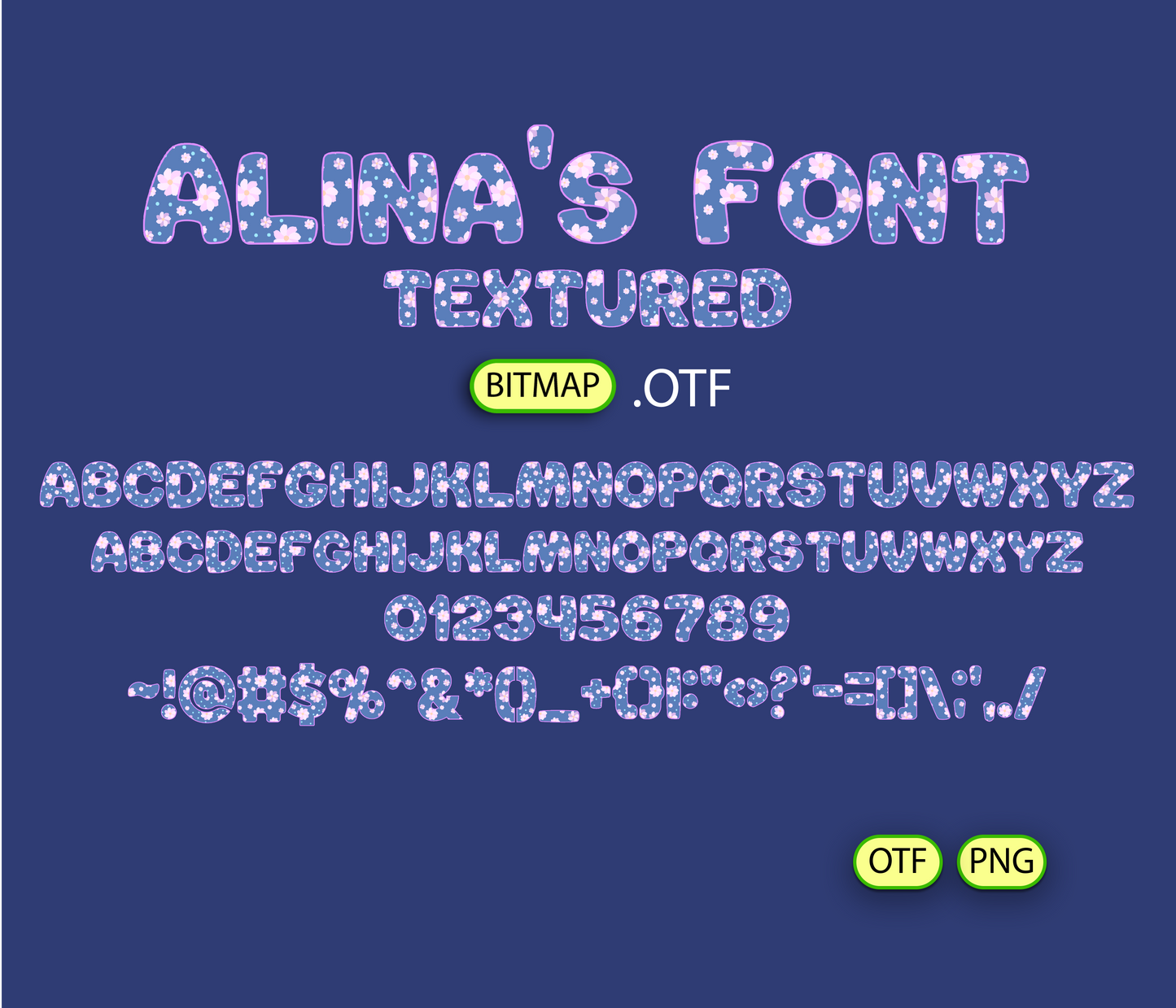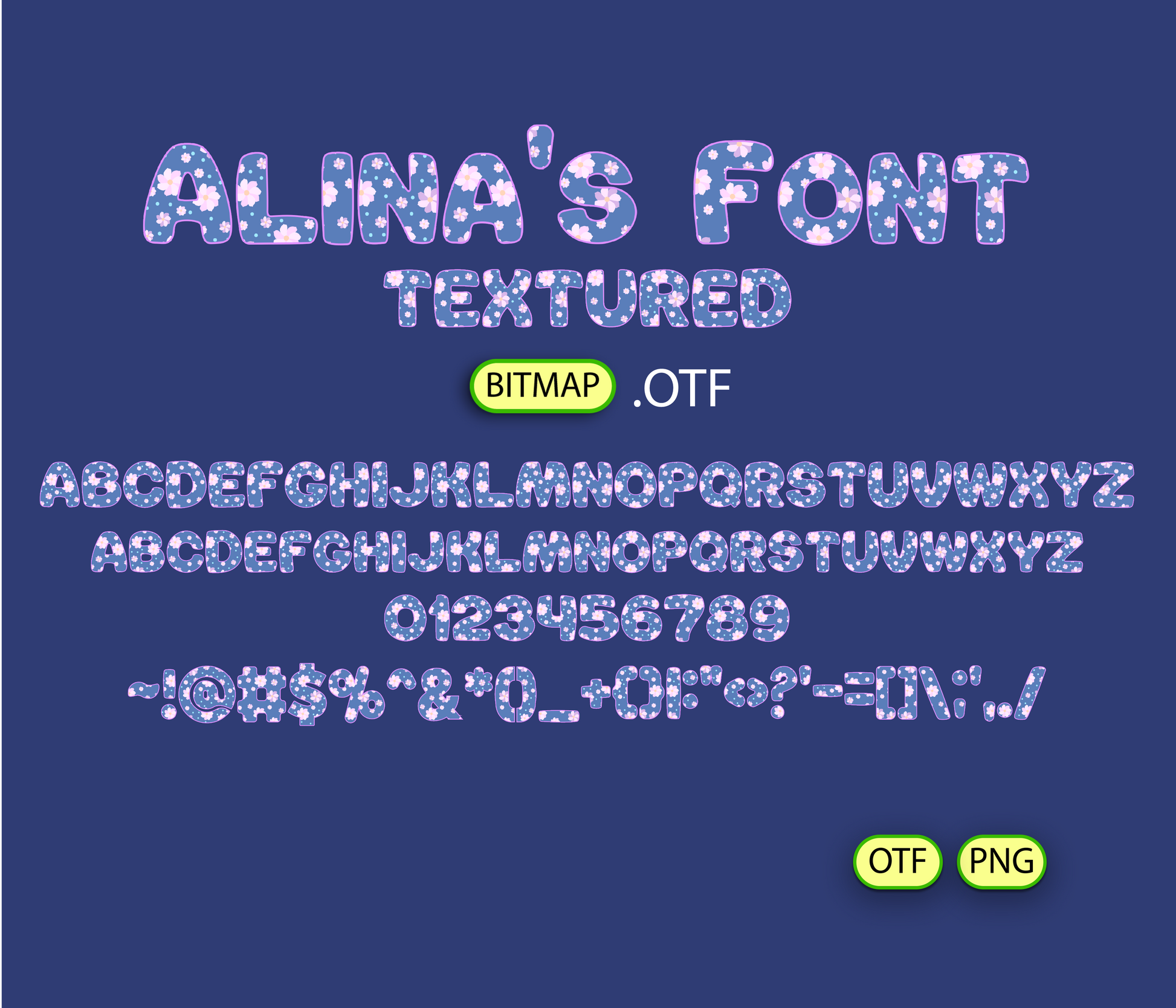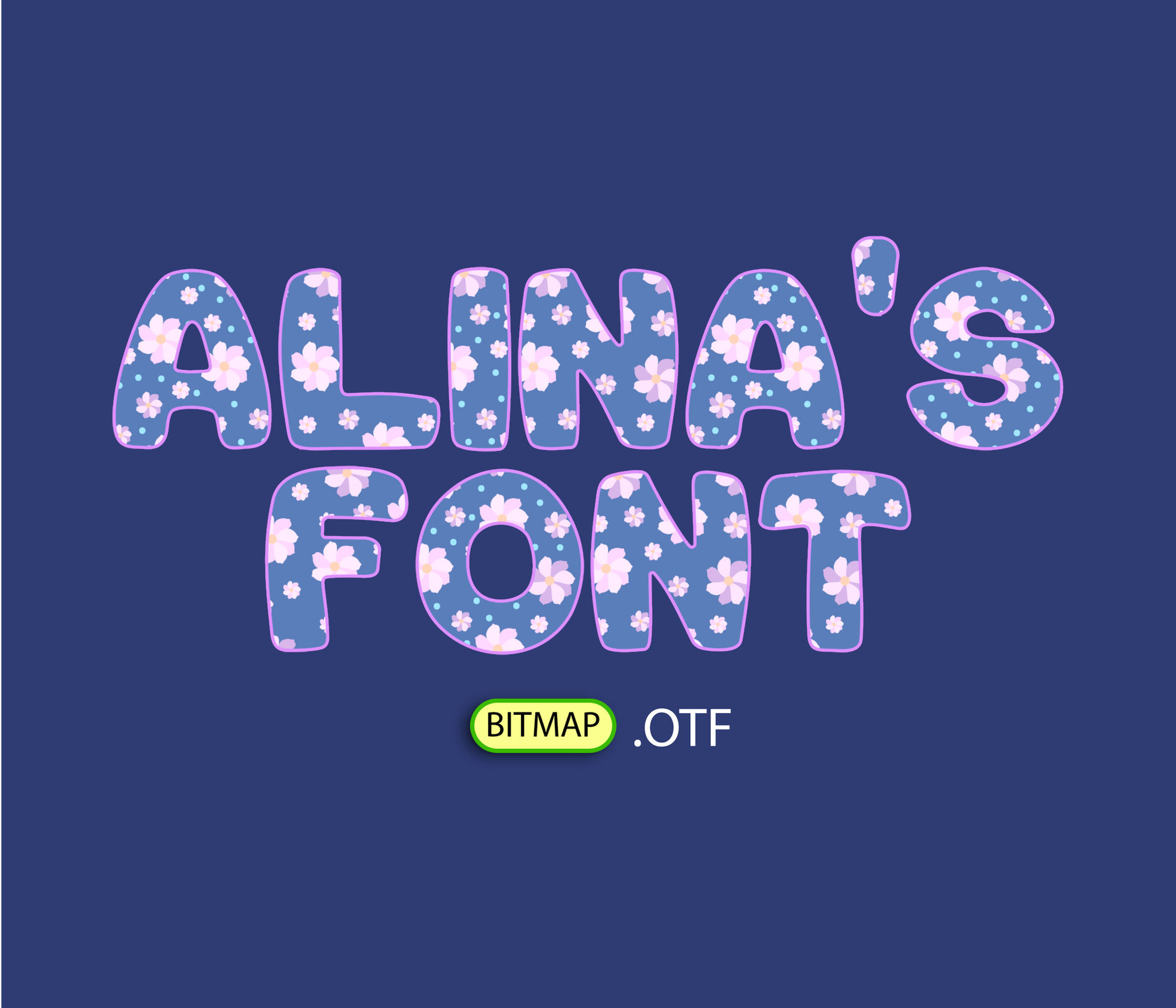
Flower Elegant Colored Pattern Font
Petal Perfection: Textured and Colored Font
Step into a botanical wonderland with our Petal PerfectionTextured Font, an original creation designed to infuse your projects with the beauty of nature. Expertly crafted with intricate flower motifs and a vibrant color palette, this textured font is a standout choice for all your creative needs.
Take your web design, branding, and digital art to the next level with this textured font's intricate detailing and artistic flair. Its versatility makes it a valuable addition to your creative toolkit, no matter the project.